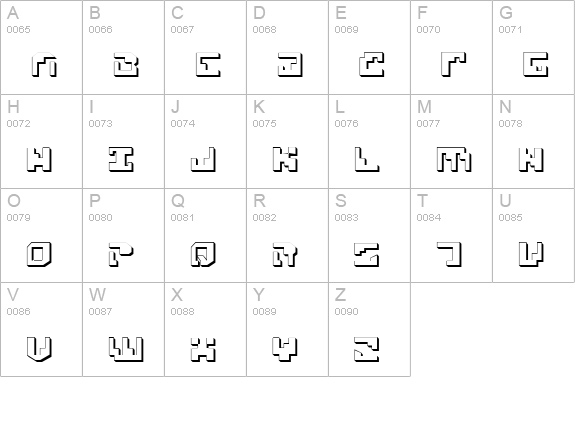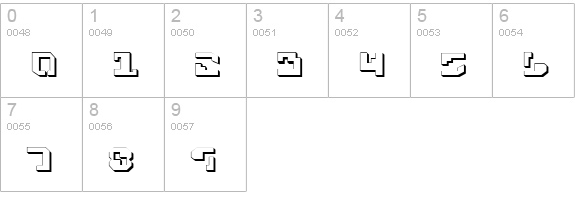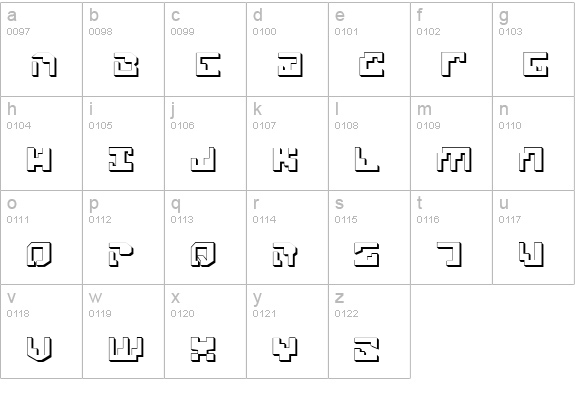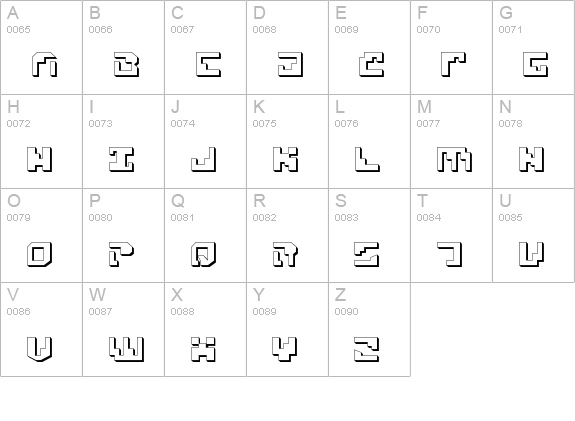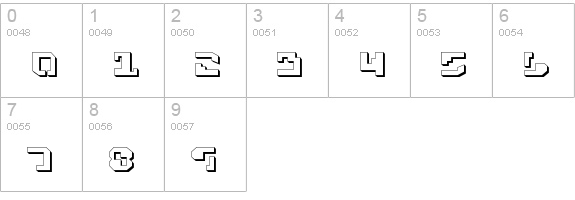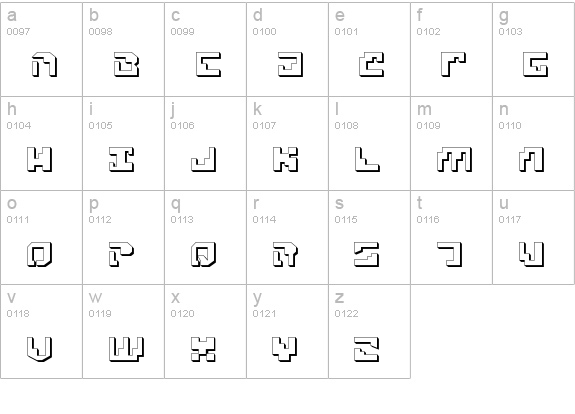
Xenophobia 3D font is a striking and unique typeface that exudes a sense of depth and dimensionality. Its futuristic design is perfect for making a bold statement in your projects. The 3D effect adds an extra layer of visual interest, making your text stand out in a dynamic way. What's even better is that Xenophobia 3D font is available for free at FontsMarket.com. You can easily download this eye-catching font and use it in your designs without any cost. Don't miss out on the opportunity to add a touch of modernity and sophistication to your creations with Xenophobia 3D font.